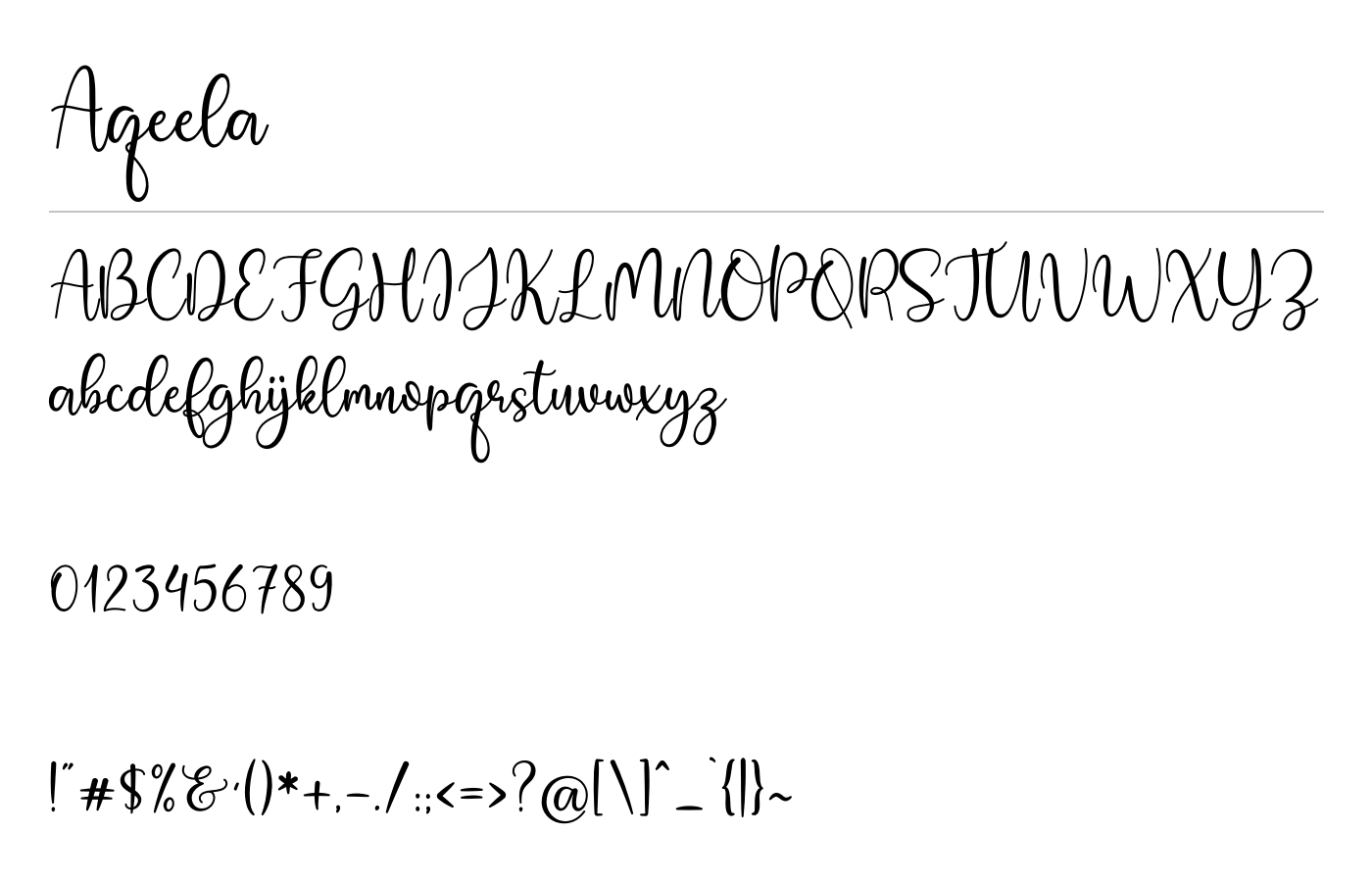
Aqeela is a delicate and playful script font with a hand-drawn feel, featuring graceful, flowing strokes and smooth connections between letters. Its airy and elegant style makes it perfect for feminine branding, invitations, and creative projects where a personal, charming touch is desired. This font works beautifully in logos and headlines, adding warmth and character without sacrificing readability.
Aqeela Font
About Aqeela Font
| Font family | Aqeela Font |
| Designer | Typesthetic Studio - Hamzah Muhamad Ihsan - Jakarta (INA) |